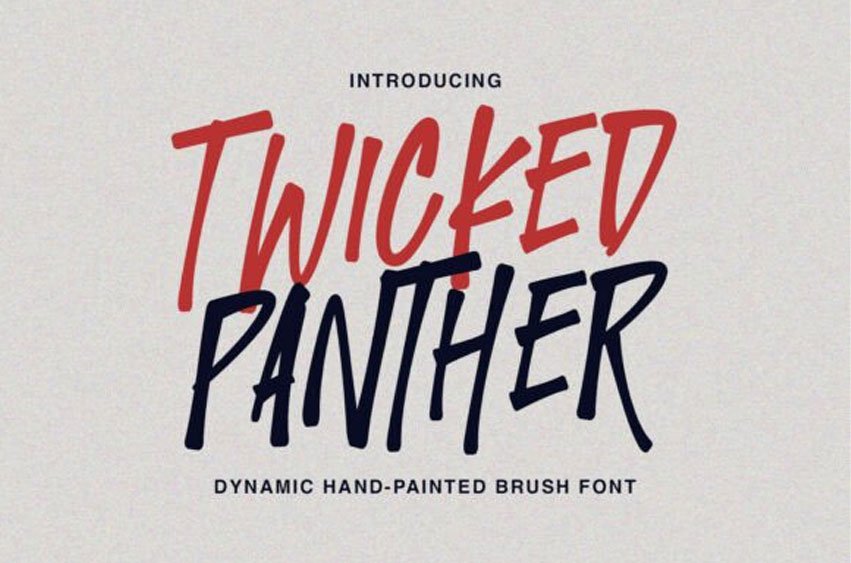
Twicked Panther Font typeface is a dynamic, hand-painted brush font designed to make an instant and unforgettable statement.
This font perfectly captures the raw energy of urban street art and the cool, effortless vibe of a rebellious spirit. The font features irregular, dynamic strokes that replicate dry brush textures, giving it a raw, expressive feel perfect for streetwear branding, music covers, sports posters, and editorial layouts.
Each glyph is crafted with a balance of angularity and fluidity, mimicking the natural variance of real brushwork while retaining optical consistency for multi-word displays. Twicked Panther supports uppercase letters, numbers, and essential punctuation, all optimized for high-resolution output.
Its sharp contrast, intentional slant, and gritty texture provide a modern, rebellious tone suited for creative professionals looking to inject energy and authenticity into their designs.